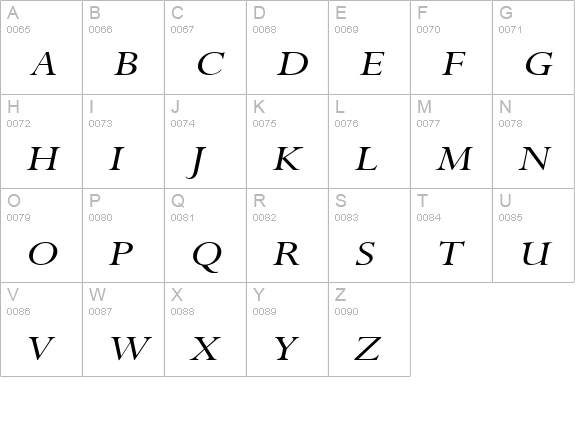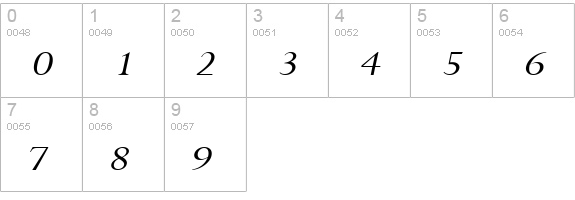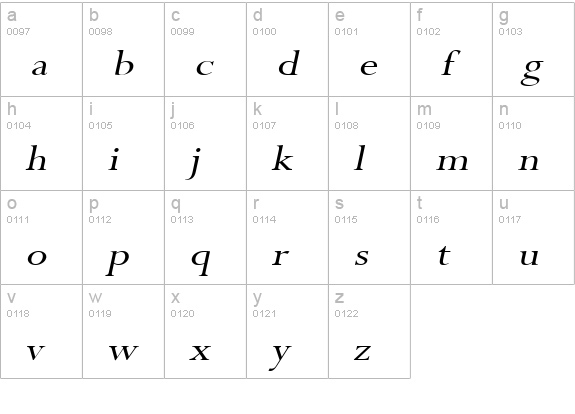
Rapid Wide Italic is a distinctive, extended-width, italic variant in the Rapid typeface family \xE2\x80\x94 well suited to design and typography projects.
Introducing the captivating and versatile Rapid Wide Italic font, a striking typeface that effortlessly combines elegance and modernity. Designed with precision and attention to detail, this font exudes a sense of sophistication and uniqueness, making it perfect for a wide range of design projects. With its sleek and stylish letterforms, Rapid Wide Italic adds a touch of flair to any design, whether it be for logos, branding materials, advertising campaigns, or editorial layouts. Its italicized slant adds a dynamic and energetic feel, creating a sense of movement that draws the eye and commands attention. One of the most remarkable aspects of Rapid Wide Italic is that it is available for free download at FontsMarket.com. This means that designers, creatives, and enthusiasts alike can easily access and utilize this stunning font without any cost. Its freely available nature allows for endless possibilities and opens up a world of creativity to all who seek to enhance their projects with its unique charm. Rapid Wide Italic provides a wide range of characters, including uppercase and lowercase letters, numerals, punctuation marks, and special symbols. It also supports multiple languages, making it a versatile choice for global design endeavors. Whether you're working on a personal project or a professional assignment, Rapid Wide Italic is the perfect companion to add that extra touch of sophistication and style. Download it for free at FontsMarket.com and unlock a world of possibilities for your next design venture.